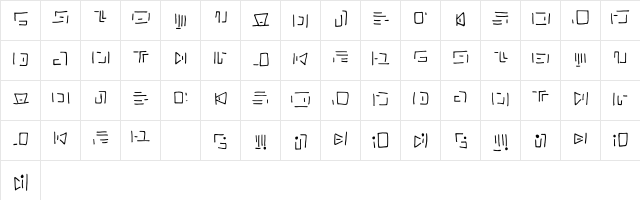
Lvlcnrn Regular
Design Context for Lvlcnrn Typeface
Lvlcnrn takes a measured approach to typography — its balanced proportions and neutral character make it a reliable workhorse for both digital and print work.